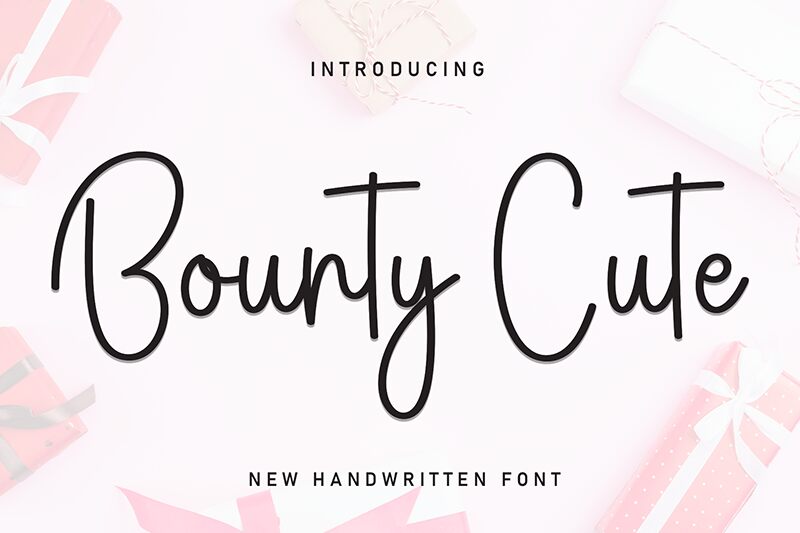
Bounty Cute
Bounty Cute font, designed by Scratchones, is an elegant modern handwritten light typeface that’s marked by expressive loops and a friendly aesthetic. Designed with smooth rounded curves, it offers a casual look that charms the reader through its simply sweet character. The letter style reads easily at both large and small sizes.